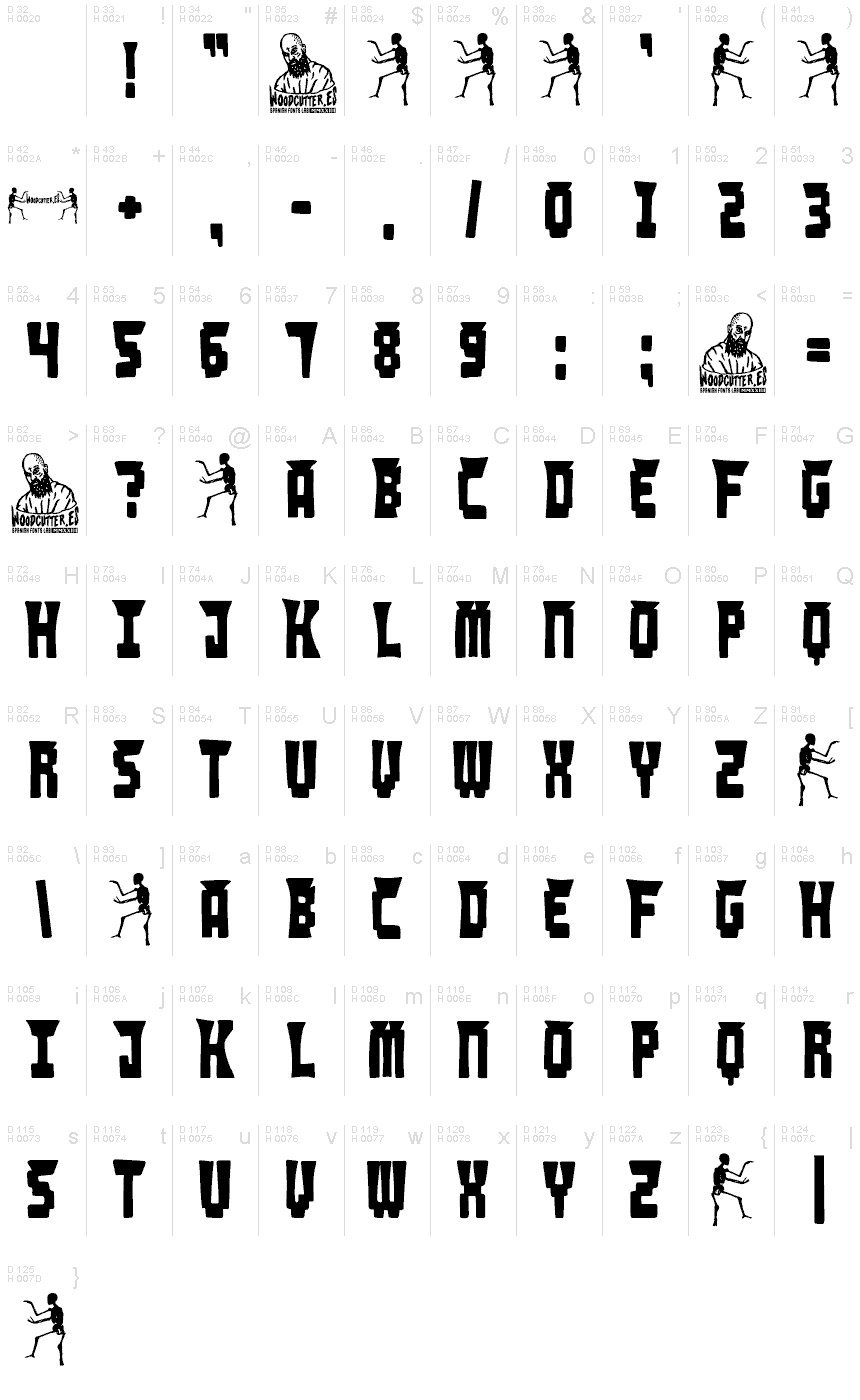
Digital Gang
Digital Gang font is a bold display font designed by Woodcutter. It has a condensed width, heavy serif influence, and distressed letter aesthetics; all noticeable characteristics used to characterize its appearance. The display typeface was inspired by vintage typography, thus giving it a gritty and vintage/retro look. Add some preservation magic to your designs by grabbing this font for free.
Use Digital Gang for covers of mystery or horror novels or books. Use in games design and development, posters in relevant fields of art like popular films’ posters (Sweeney Todd, Dracula), online scary YouTube thumbnails, intros and outros of video content in film or TV shows opening titles/credit cards etc., mobile applications design & development.